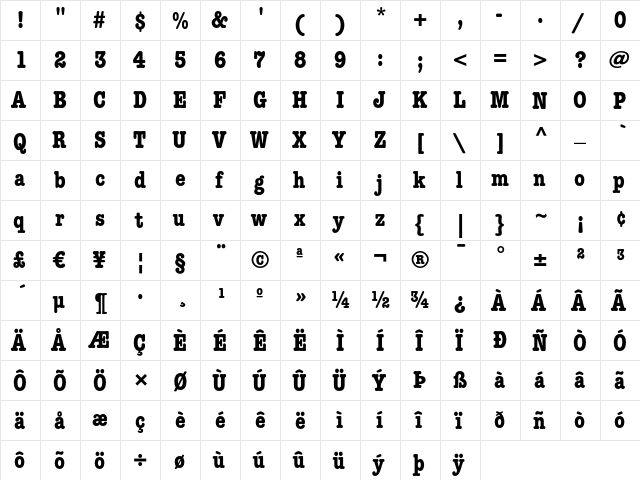
ITC American Typewriter LT Bold Condensed
Design Context for ITC American Typewriter LT Typeface
ITC American Typewriter LT brings the precise, column-aligned rhythm of monospaced typography to designs that value technical clarity and systematic order. The heavy weight commands attention and anchors typographic hierarchies.